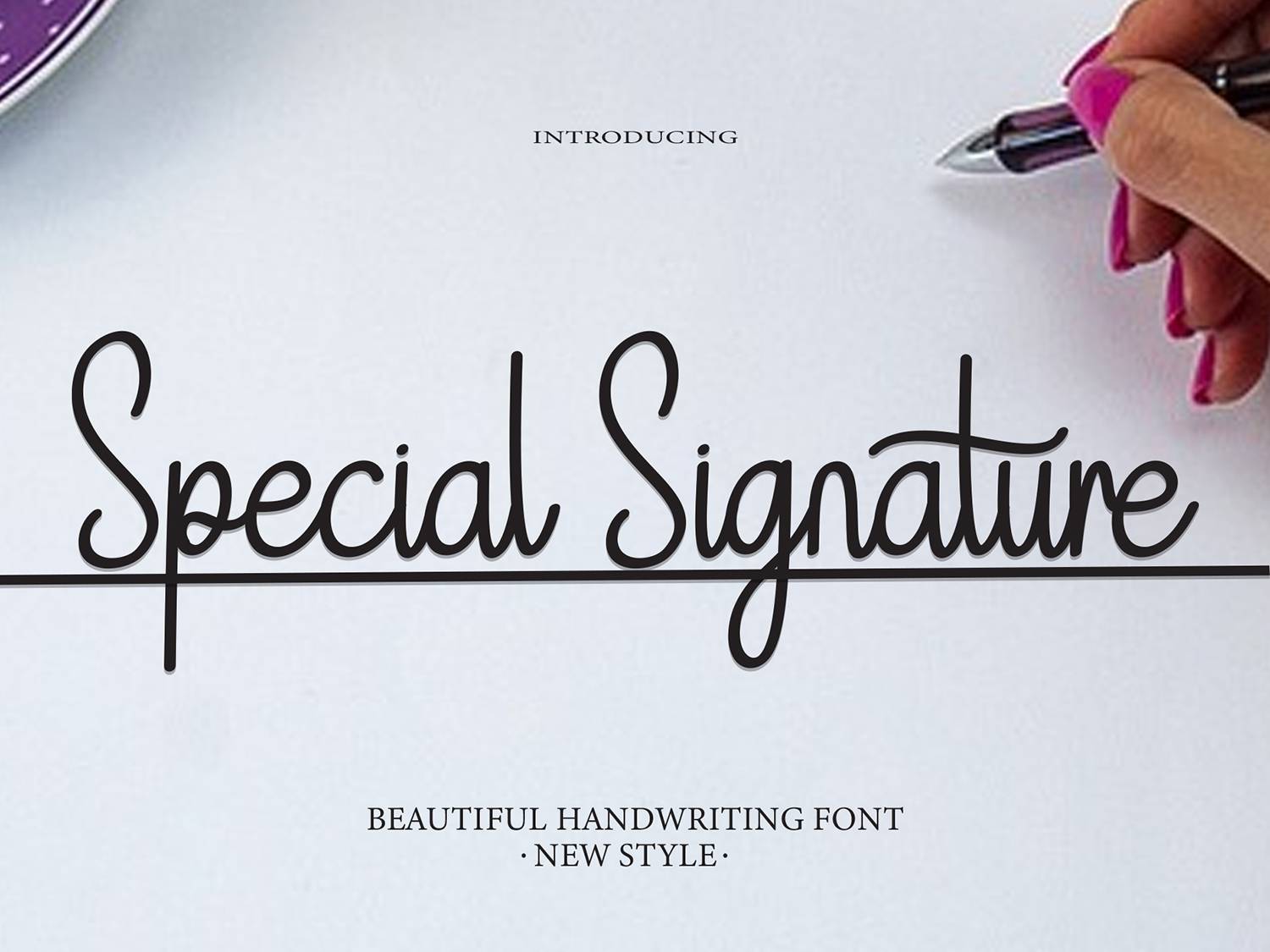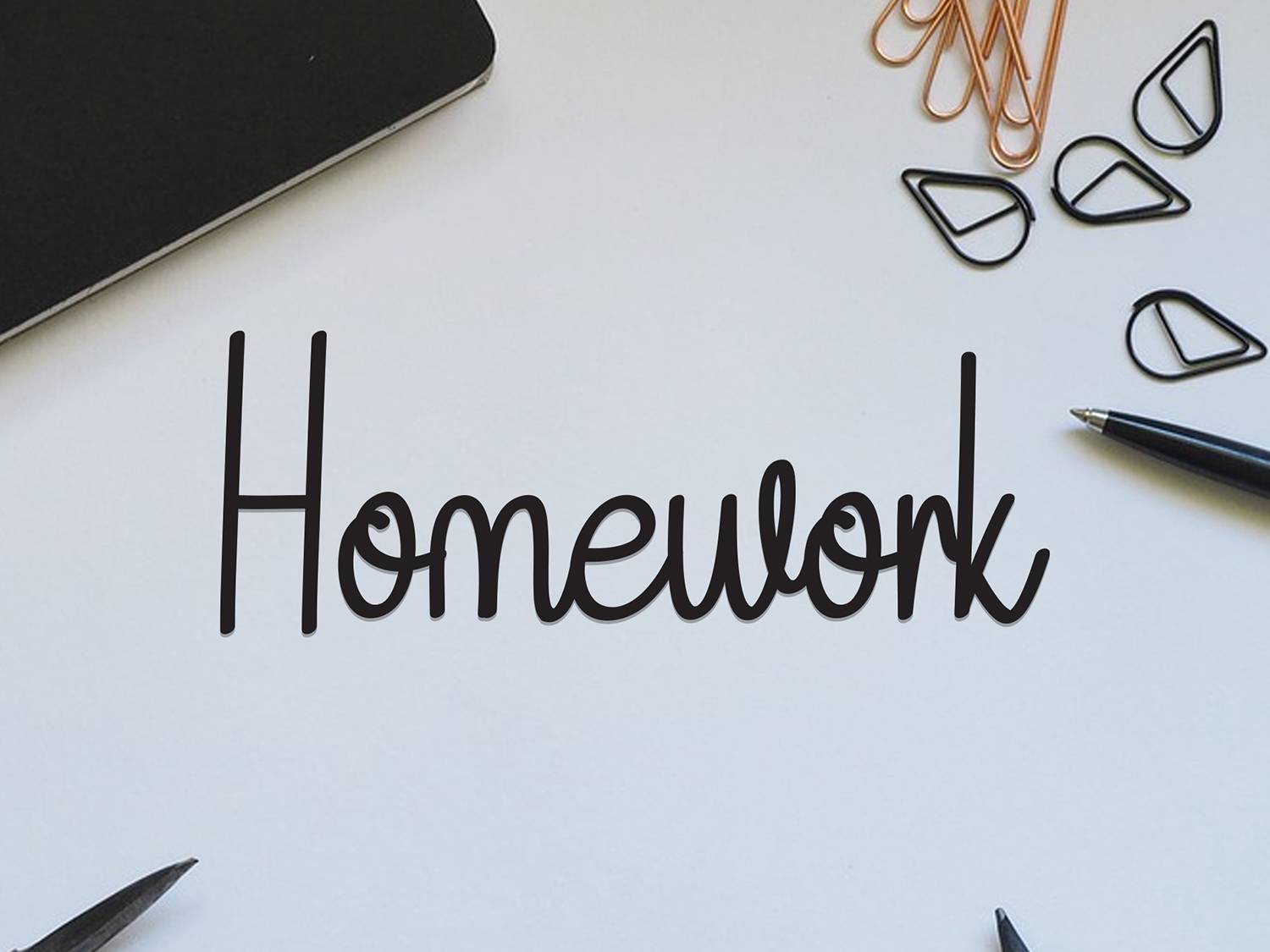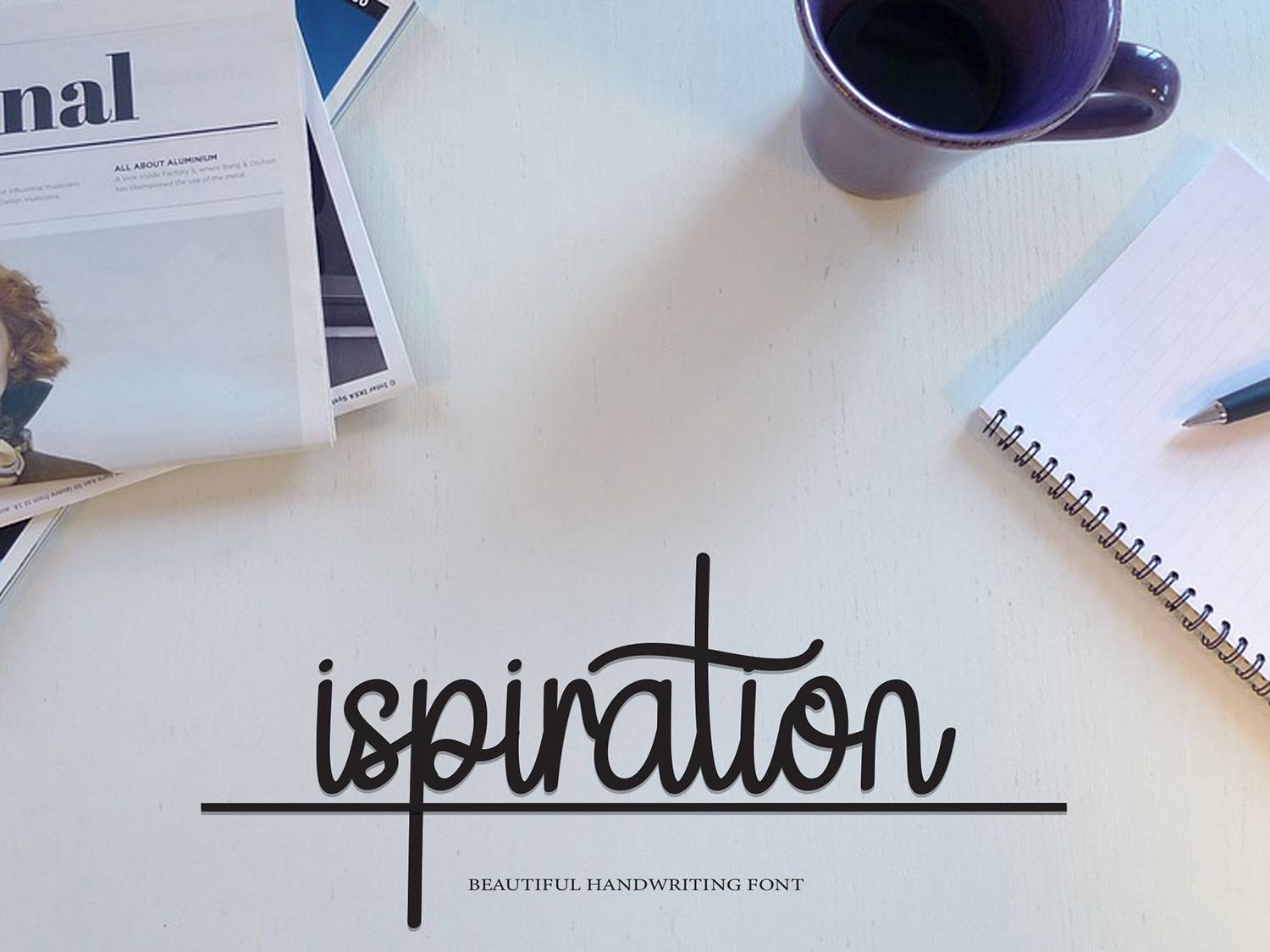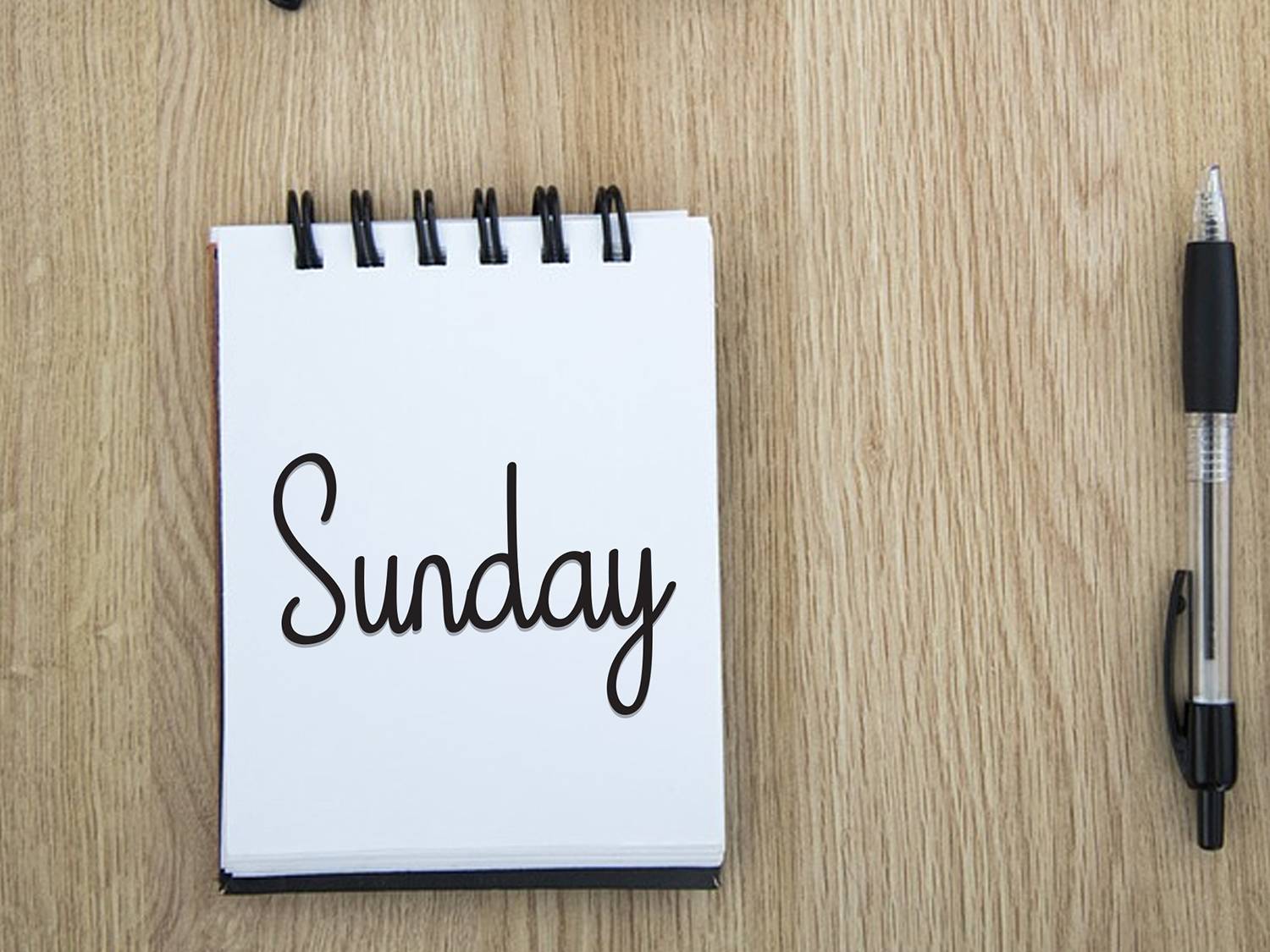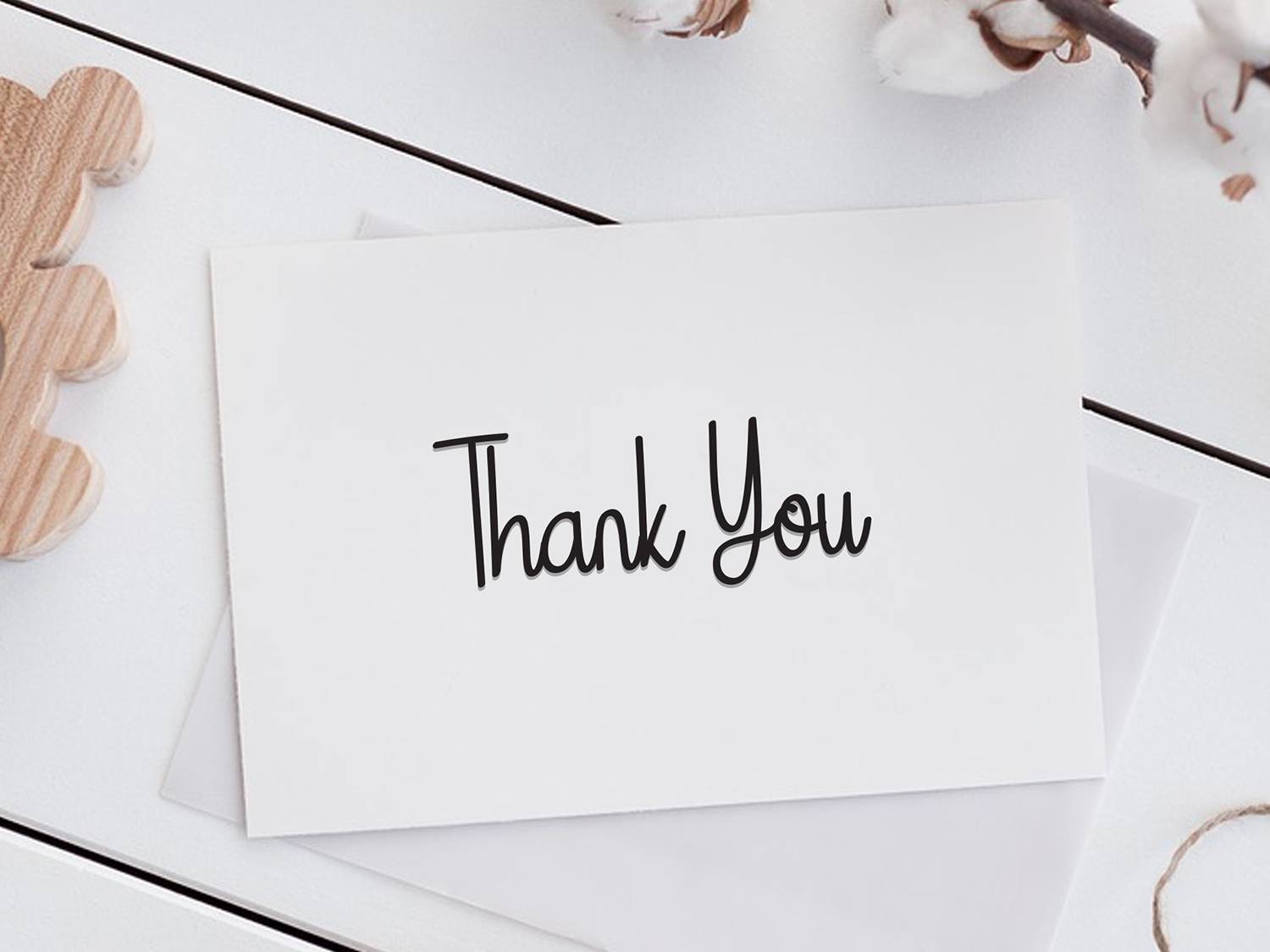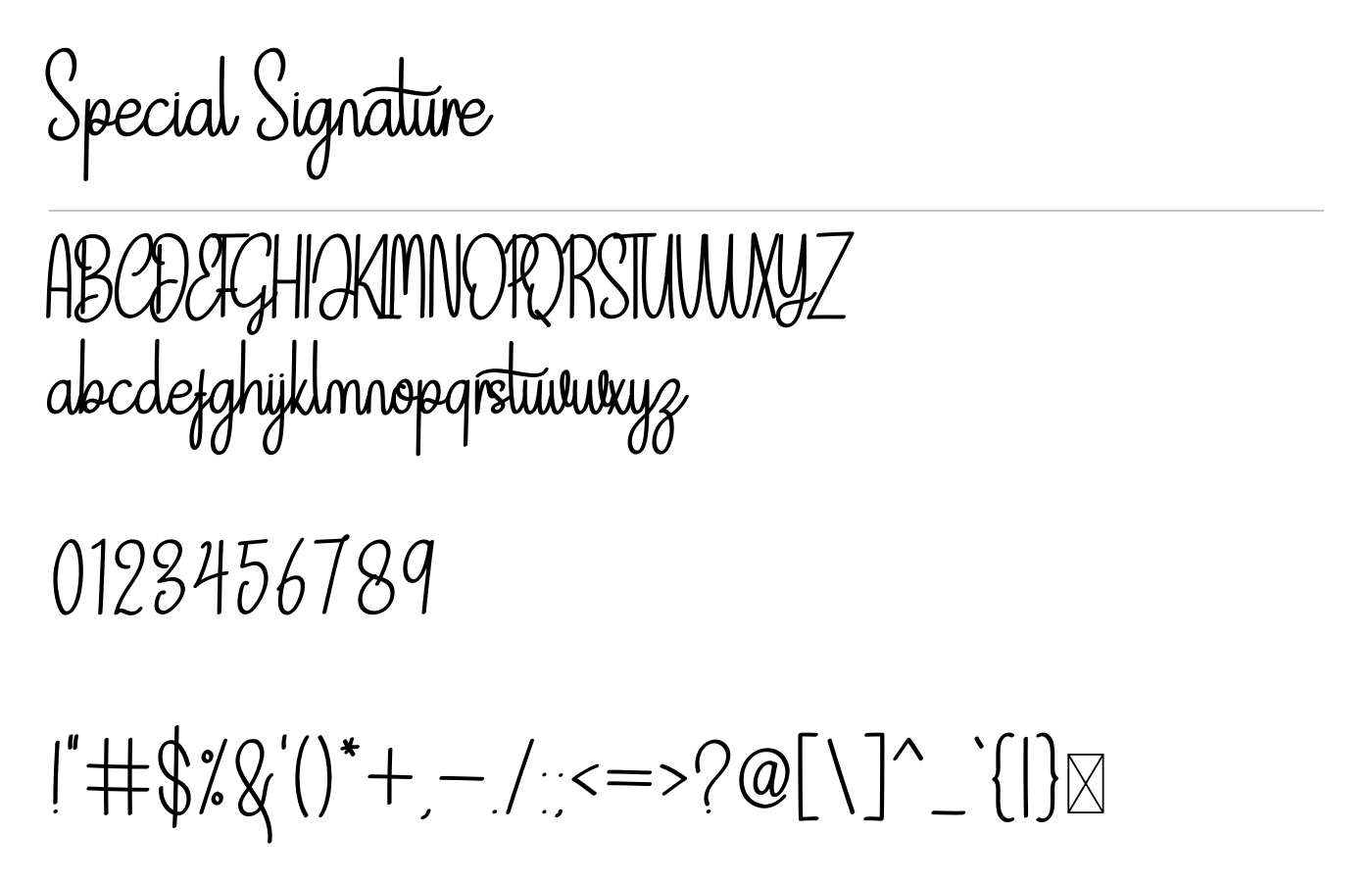
Special Signature is a delicate, narrow script font with a hand-drawn, casual feel that mimics elegant handwriting. Its slender strokes and tall letterforms give it a refined yet approachable personality, making it perfect for personal branding, invitations, and stylish logos where a touch of sophistication and warmth is desired.
Special Signature Font
About Special Signature Font